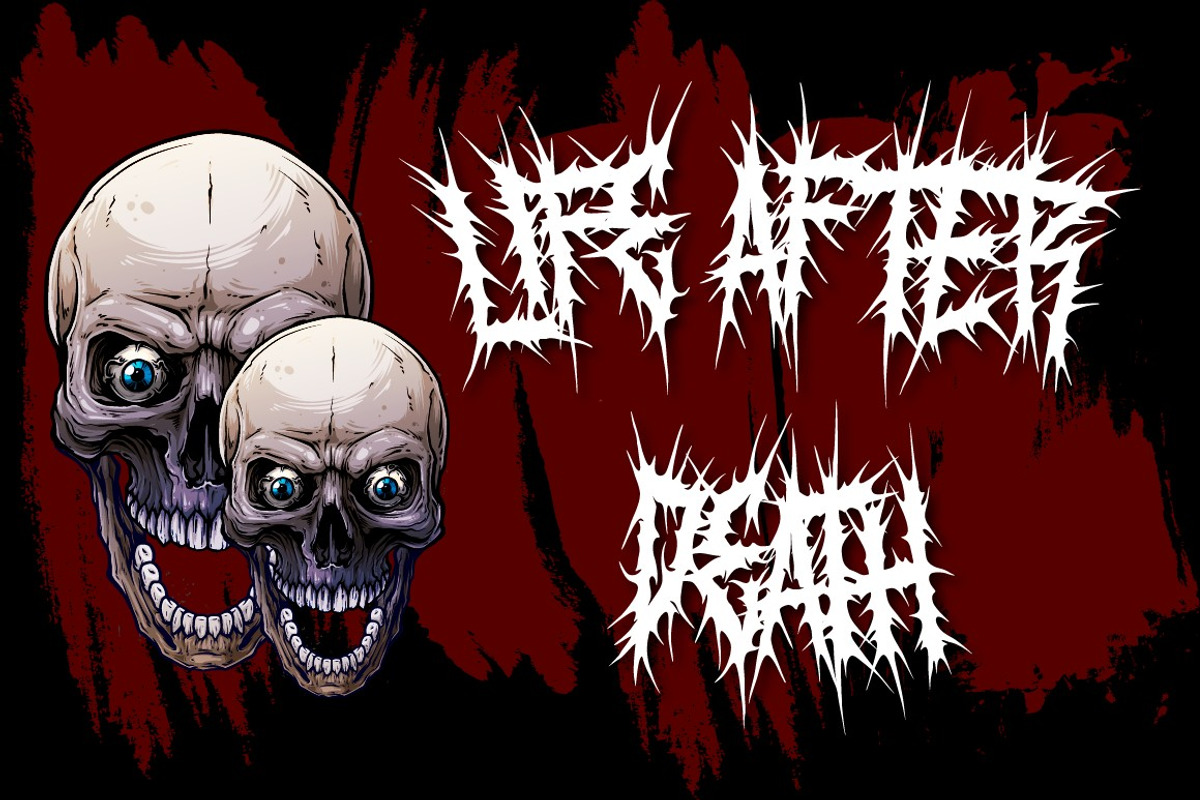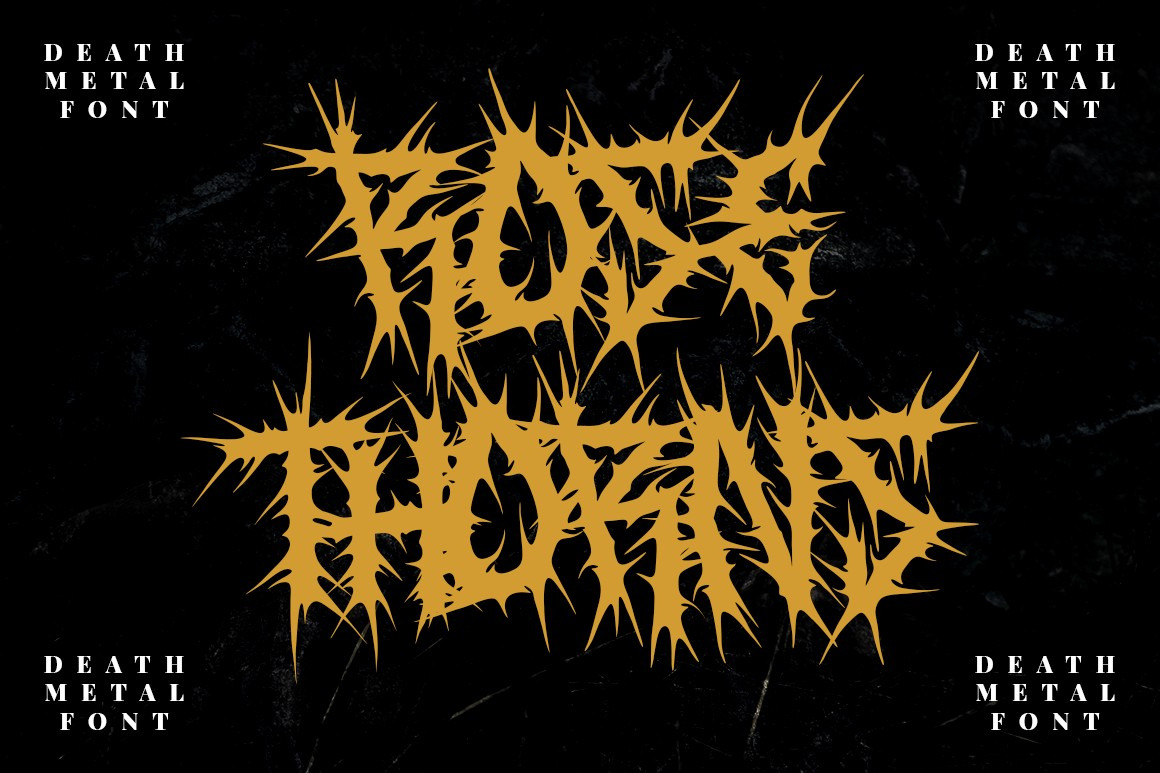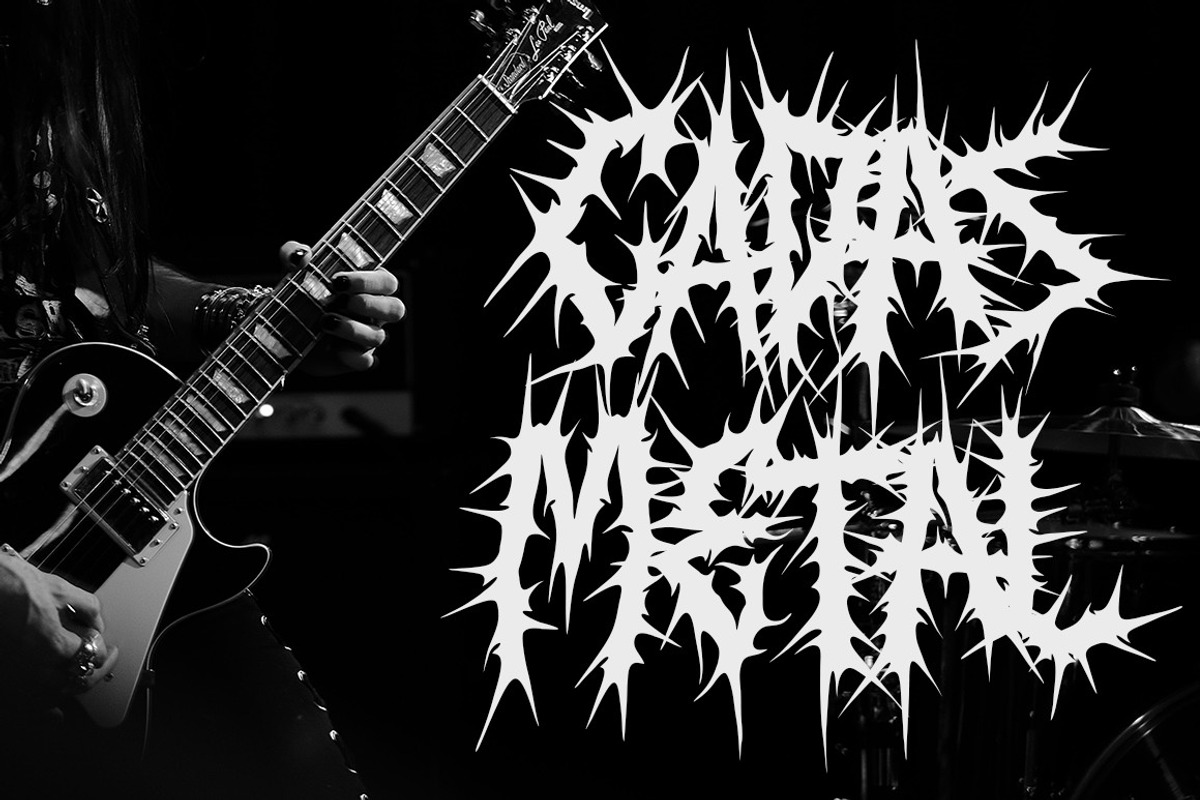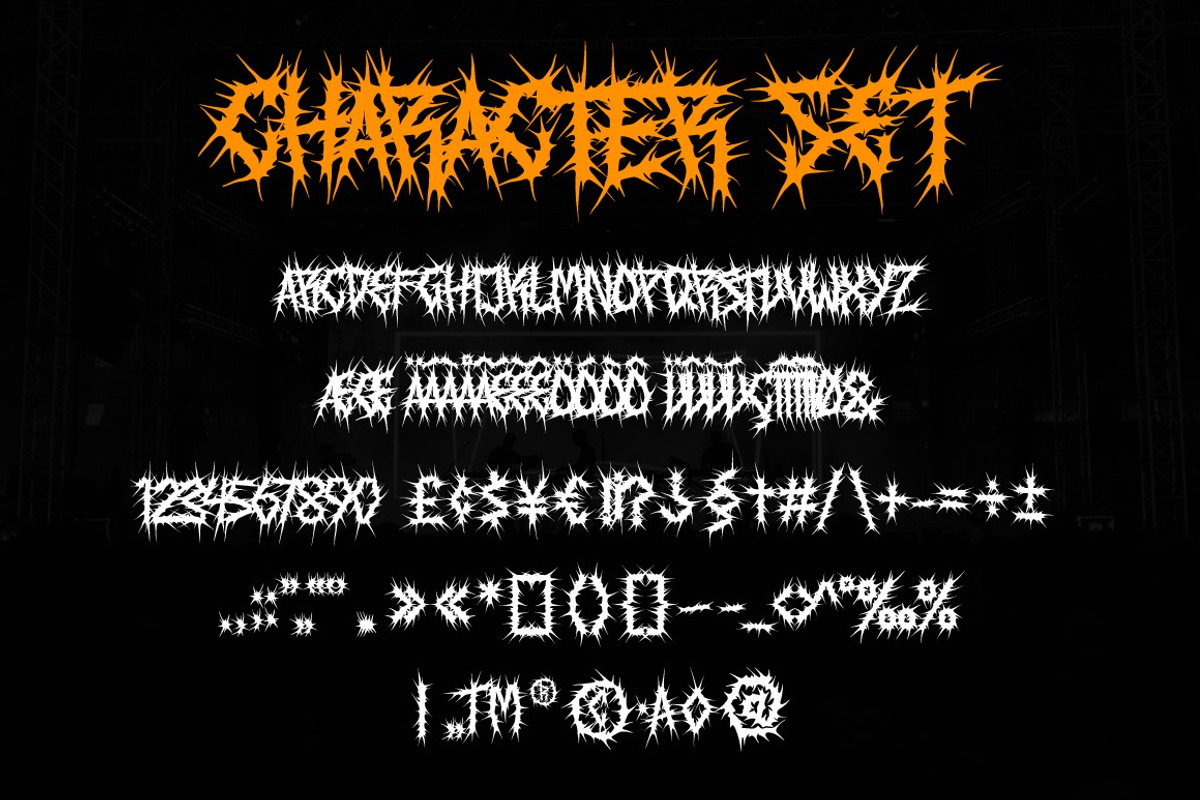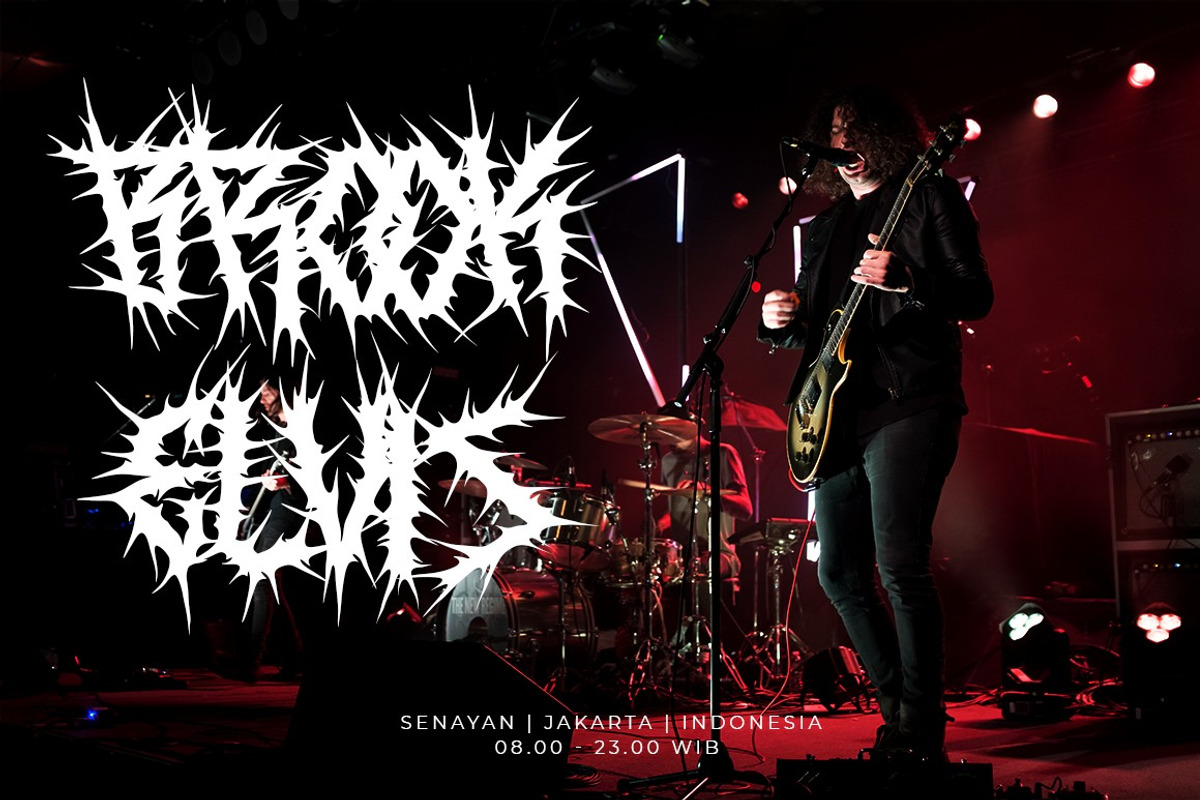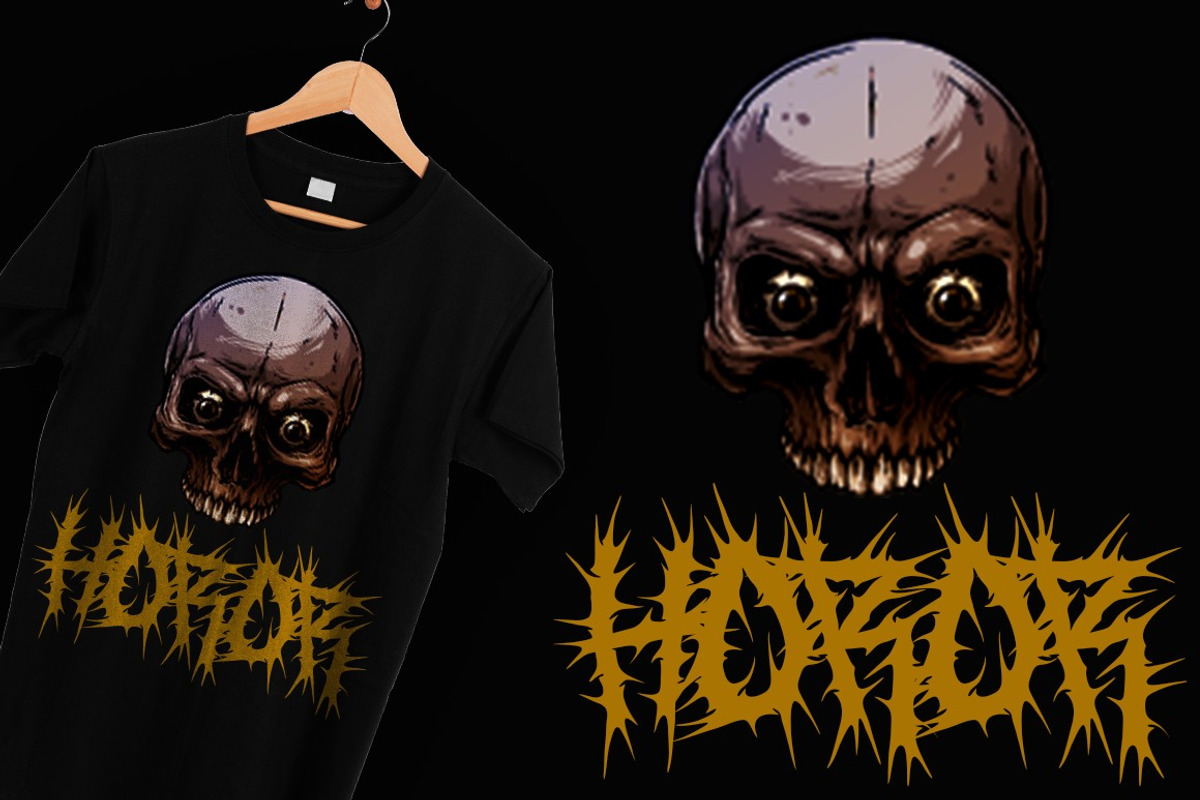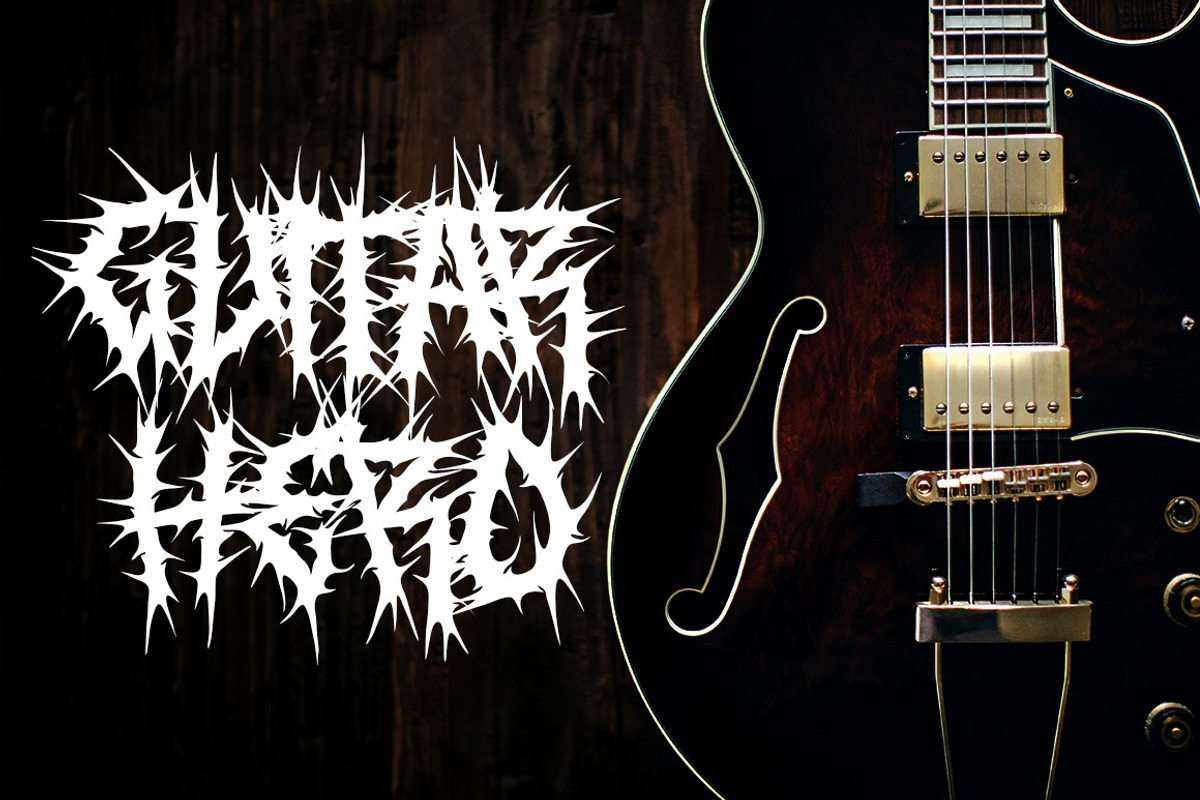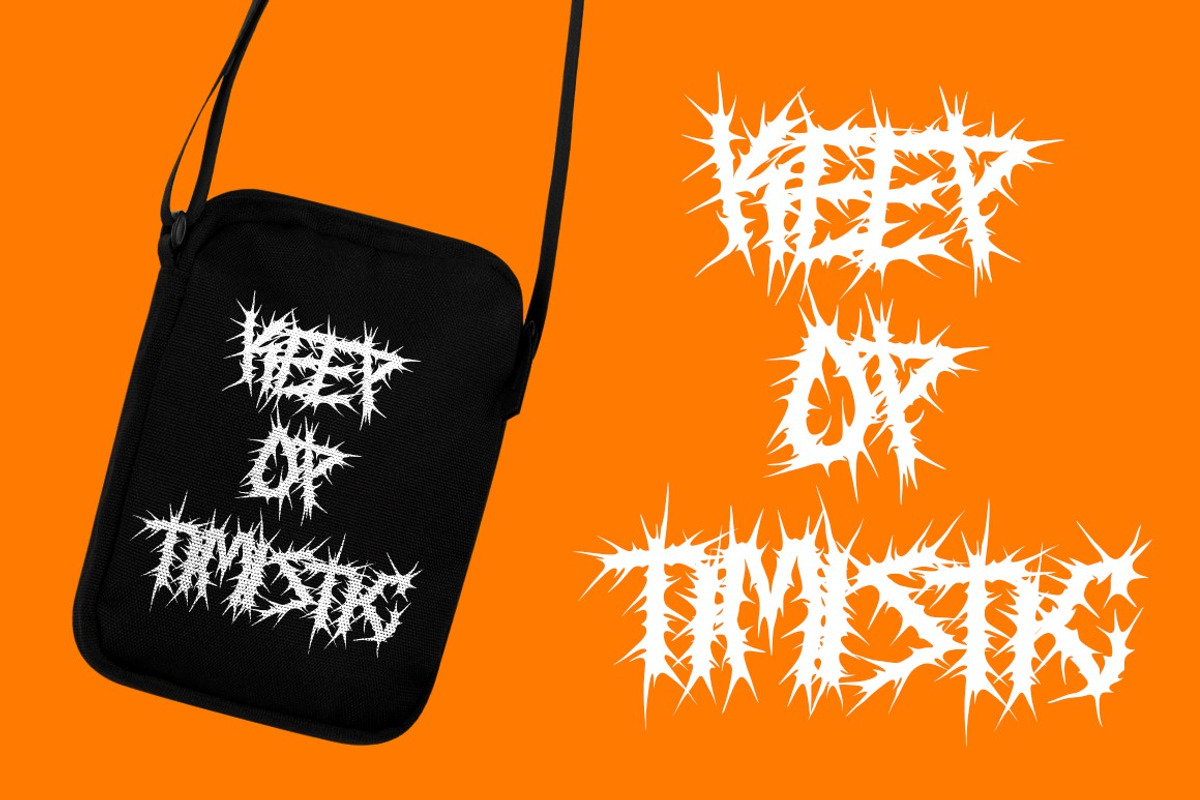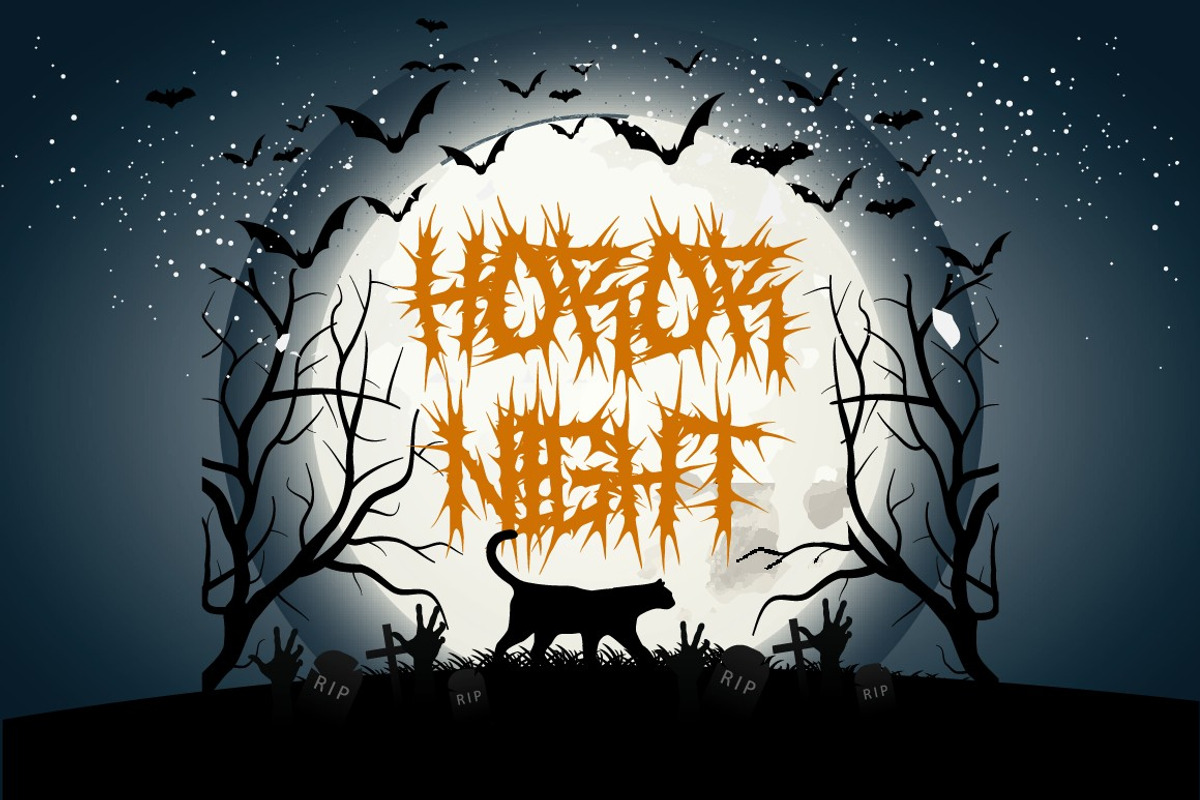
Rose Thorns
Introducing Rose Thorns . A Deathmetal Font. This font is inspired by underground and metal music band logostyle. There are ligature character in this font, which makes this font even super cool. Rose Thorns is suitable for death metal music, underground, hardcore music, blackletter, death metal logo design, clothing, logos, music covers, posters or other designs with the theme deathmetal.